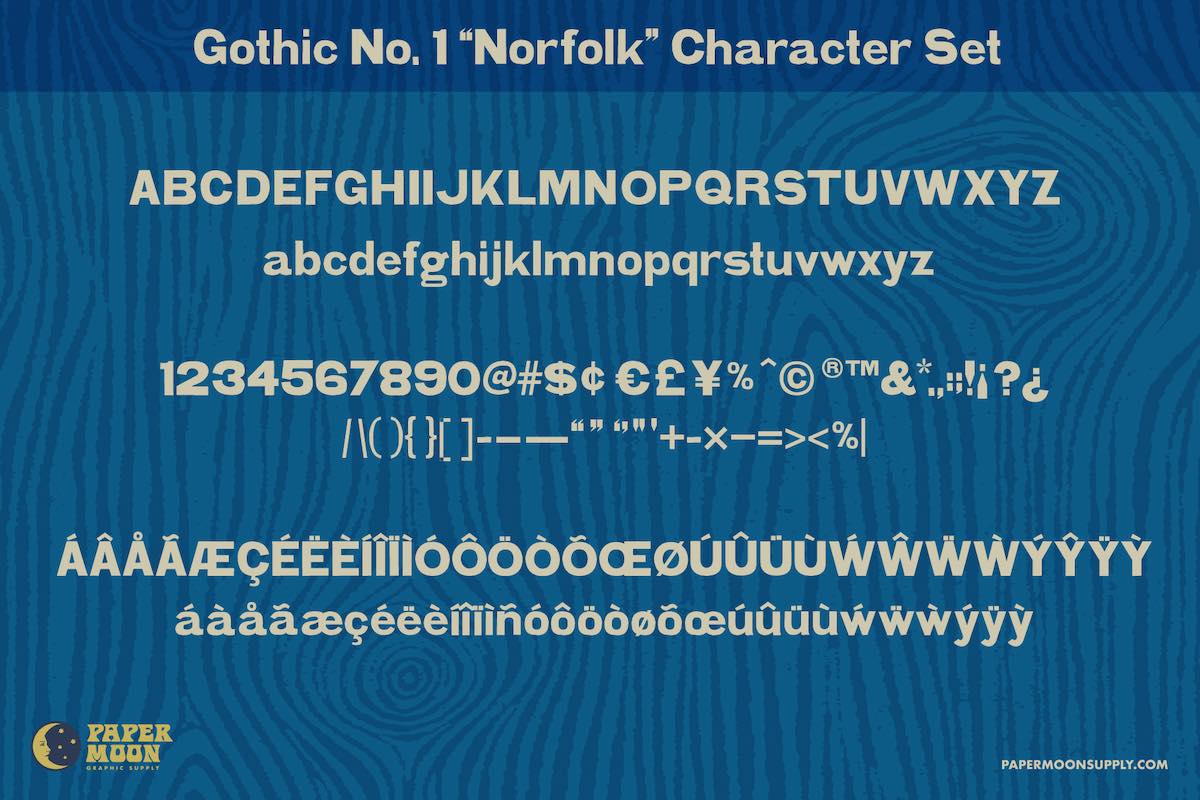
Norfolk Vintage Letterpress Font
Recreate Vintage Concert Posters and Show Prints.
Norfolk Vintage Letterpress Font is a practical font created from real prints of vintage a typeface.
Norfolk faithfully reproduces the subtle imperfections of real ink on paper. Use it in your packaging, branding, posters, website, and more to recreate the beauty and nostalgia of vintage concert posters, broadsides, playbills, and show prints,
Norfolk has natural "ink on paper" edges, making it ideal for eye-catching designs with an elegant letterpress feel.
• Multi-Lingual Support
From accented characters to unique ligatures, Norfolk has you covered for a range of languages, ensuring your retro-inspired designs reach a global audience.